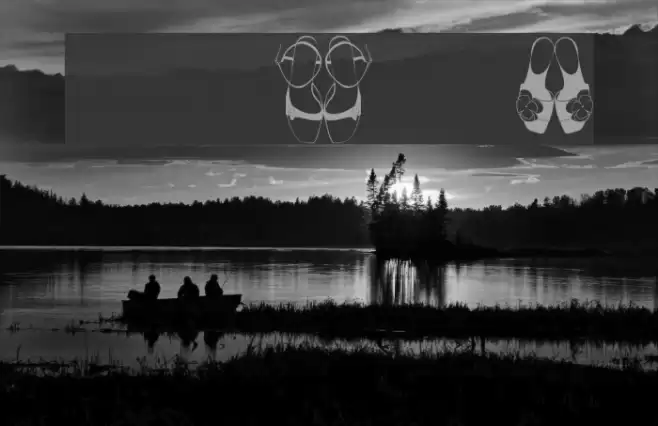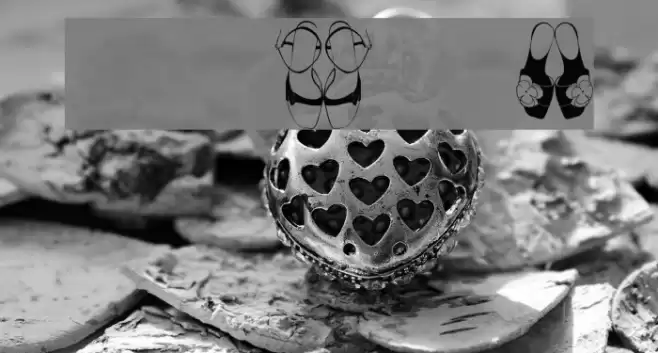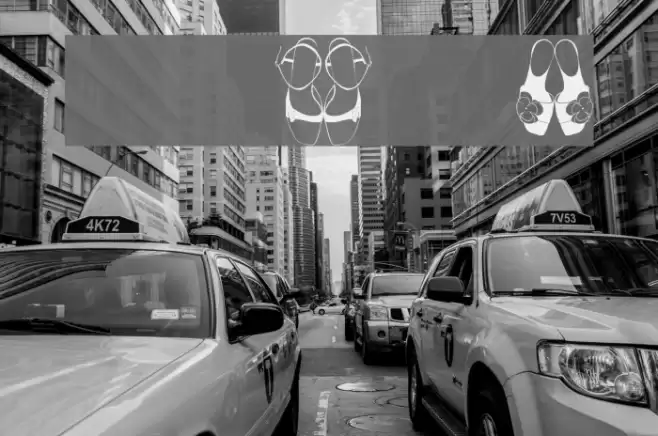
Sandal x LOVE Font
Sandal x LOVE Description
A playful decorative font composed of heart and sandal illustrations forming each character, with a mix of outline and filled icons. The style is whimsical and highly pictorial, making each letter and symbol visually distinct and themed around love and footwear.
Whimsical icon-based font using hearts and sandals for each character from Dingbats fonts.
- Proposed Projects: Greeting cards, fashion branding, children's books, themed event invitations, playful posters.
- Overall Style: Decorative, Playful, Thematic
- Use Case: Logos, Headlines, Posters, Invitations